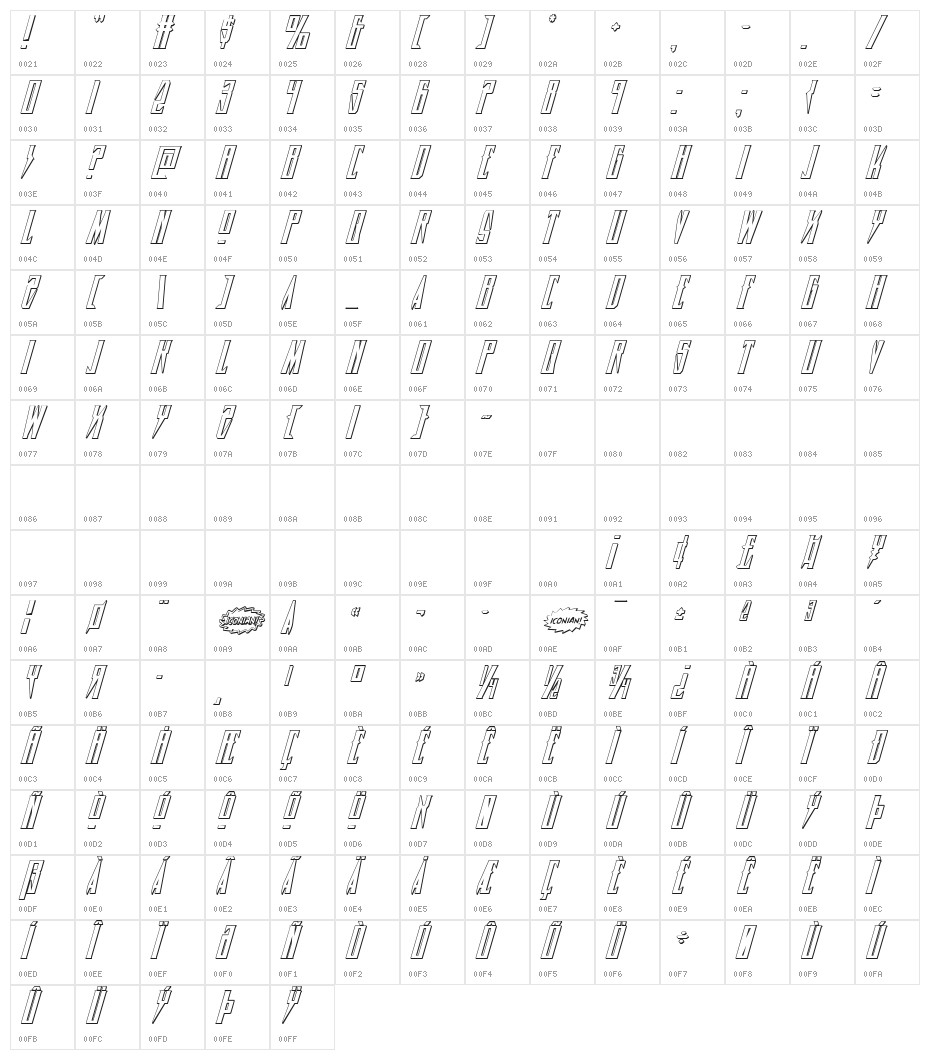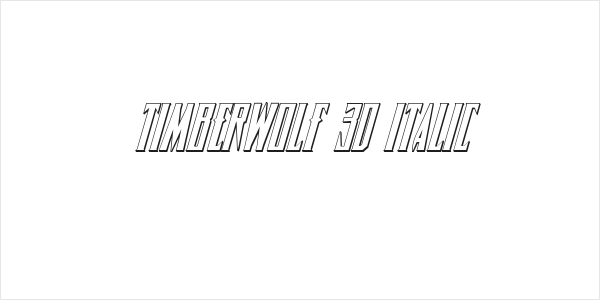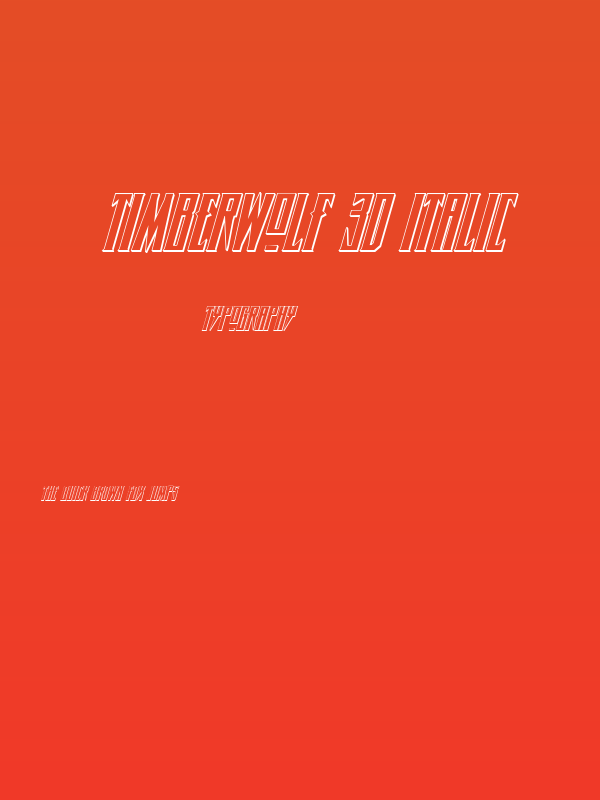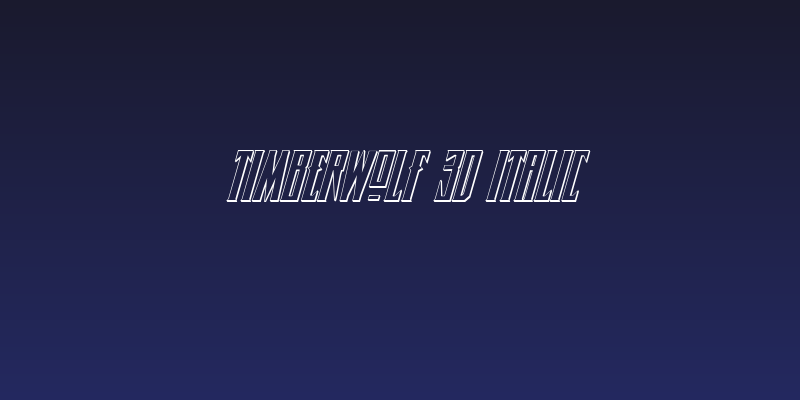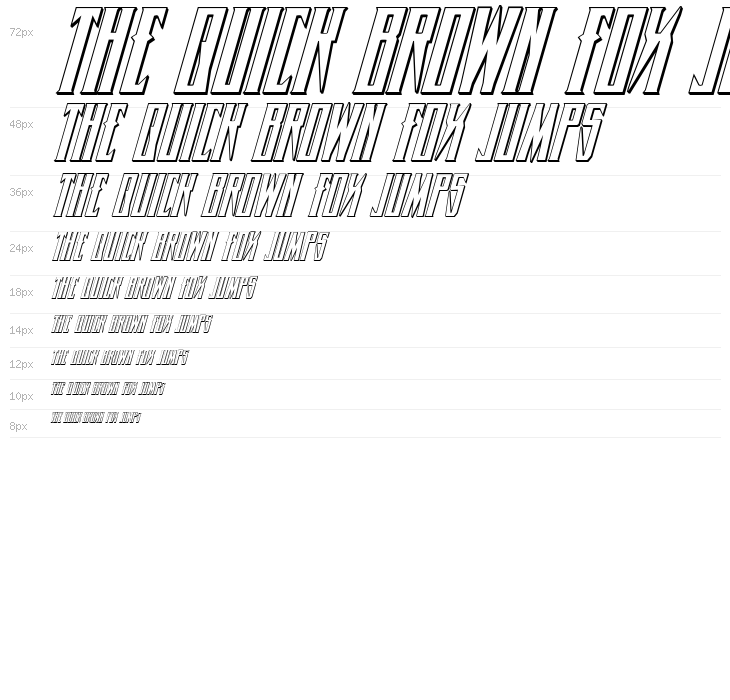
Timberwolf 3D Italic Font
Timberwolf 3D Italic Description
This font features a bold and dynamic 3D italic style, characterized by its sharp angles and elongated forms. The letters are outlined, giving them a striking, futuristic appearance. The uppercase and lowercase letters maintain a consistent slant, enhancing the sense of motion and energy. The numbers and special characters follow the same design principles, ensuring uniformity across all glyphs. This font is ideal for projects that require a modern and impactful visual statement.
| Proposed Projects | Ideal for video game titles, movie posters, and branding that requires a modern, dynamic aesthetic. |